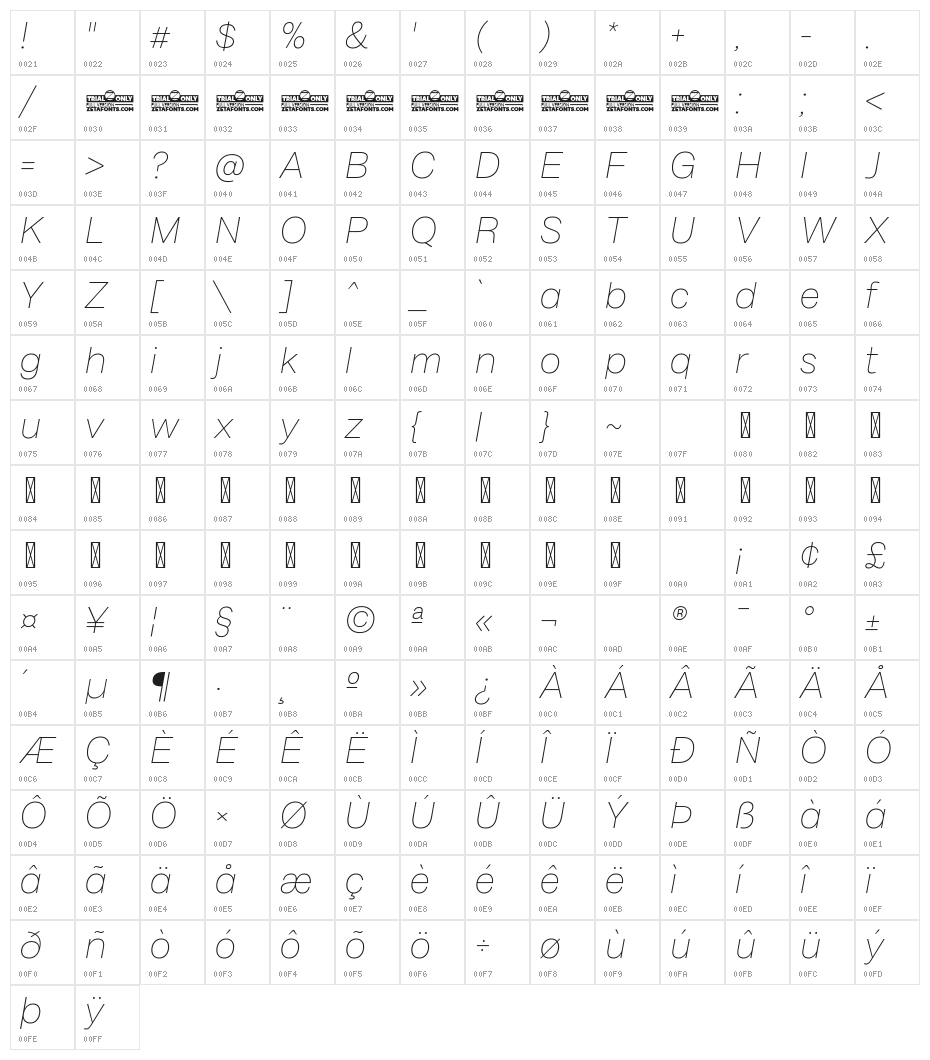
Milligram Trial Thin Italic Font
Milligram Trial Thin Italic Description
This font features a sleek and modern design with a thin, elegant structure. The characters are slightly italicized, giving a sense of motion and fluidity. The uppercase and lowercase letters are well-proportioned, maintaining a consistent flow throughout. The numerals and special characters are designed to match the overall aesthetic, providing a cohesive look. The font's thin strokes and minimalistic style make it ideal for contemporary design projects.